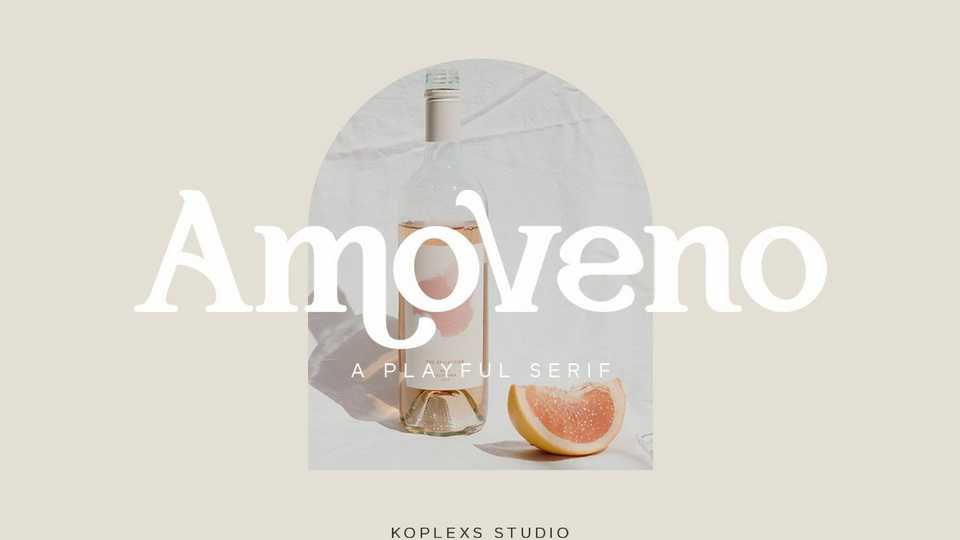
Download Amoveno font, a playful elegant modern vintage typeface with beautiful ligatures, tons of special alternative glyphs, ornament. Amoveno is a very versatile font that works great in large and small sizes.
Designer: Koplexs Studio